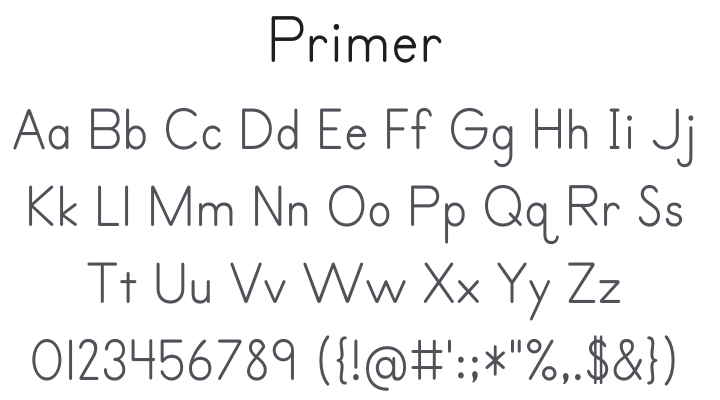
Primer Font Family
About Primer
Primer is a clean, friendly sans-serif typeface family inspired by printing instruction papers and children's handwriting workbooks. The Print variant offers solid, legible letterforms in Regular and Bold, while the Apples variant renders each letter as a dashed tracing outline — mimicking the dotted guides found in school handwriting exercises. Perfect for educational materials, children's branding, instructional design, and any project needing warm, classroom-familiar clarity.